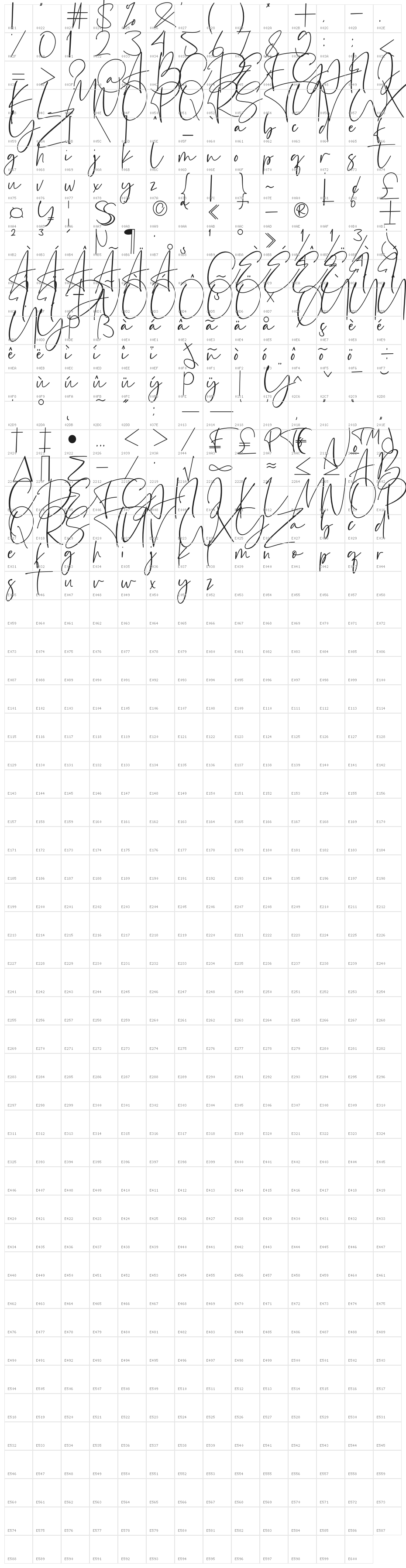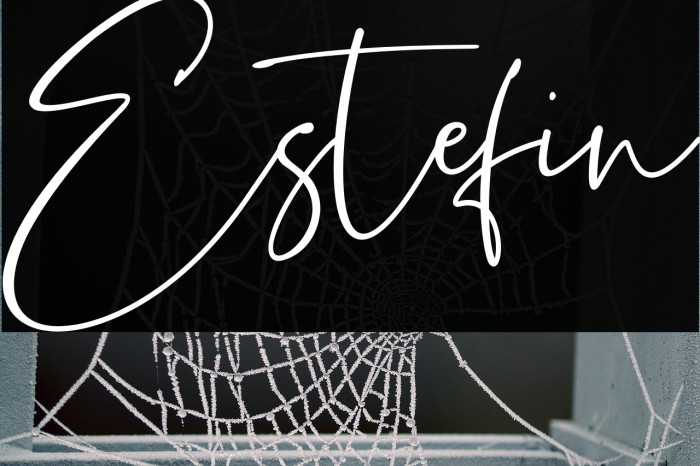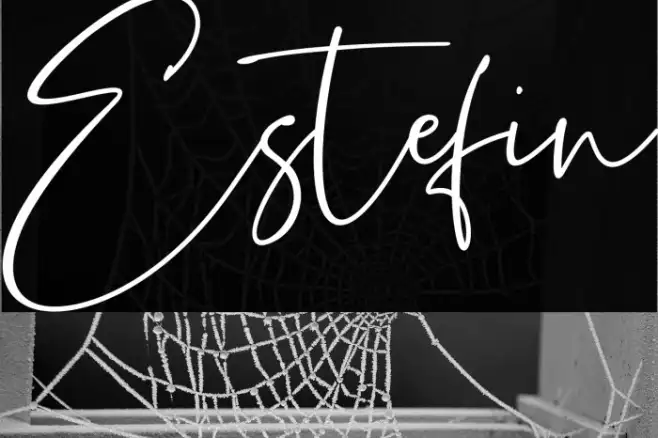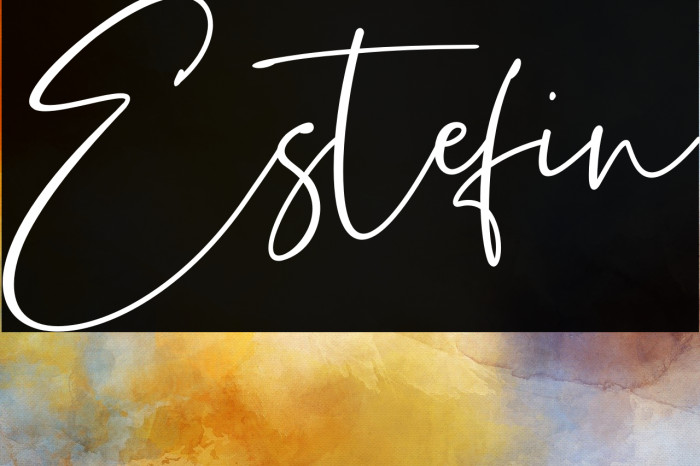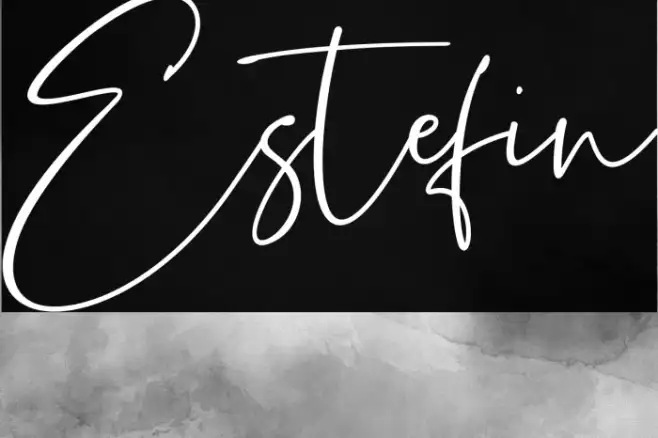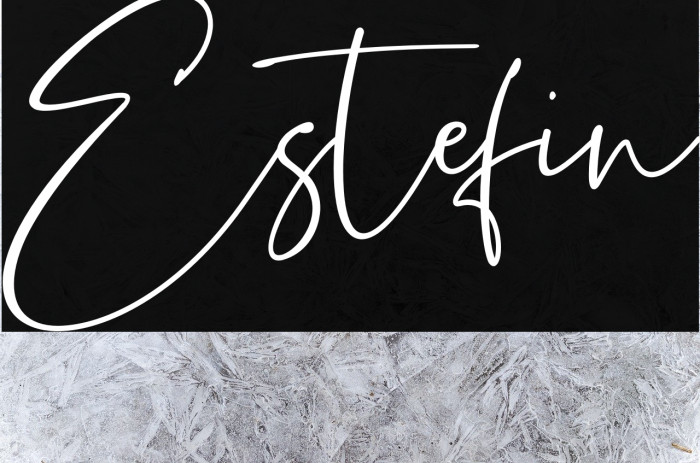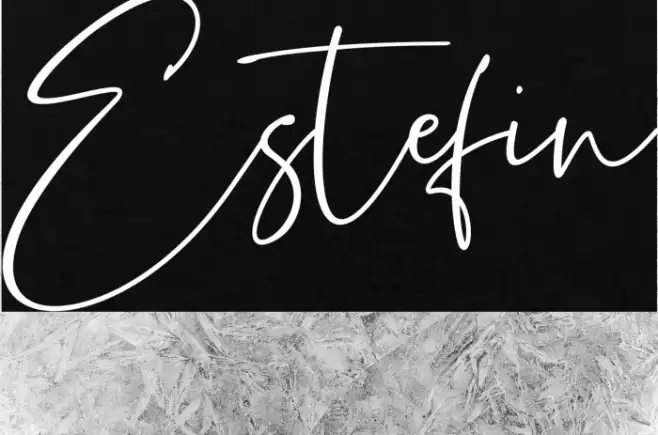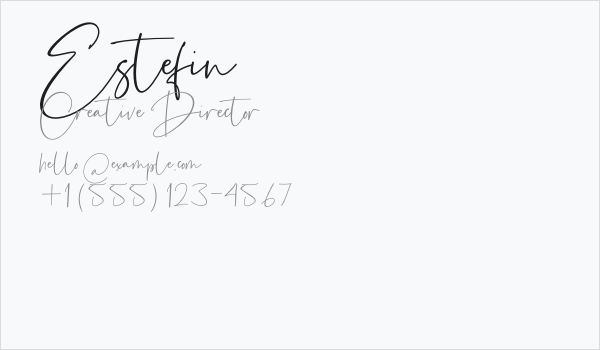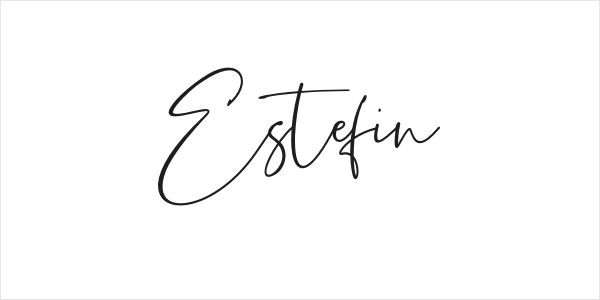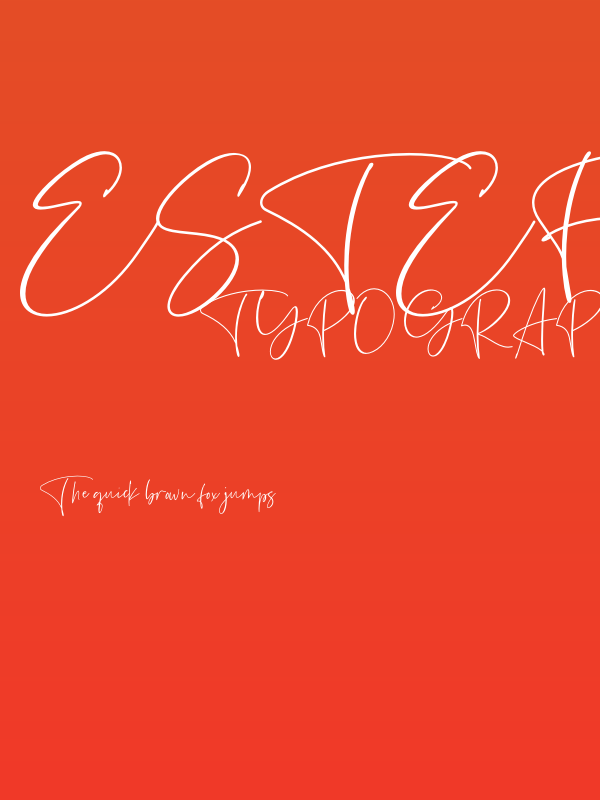
Estefin Font
Estefin Description
This font features a dynamic and fluid handwritten style, characterized by its elegant and flowing letterforms. The uppercase letters are tall and slender, with a slight slant that adds a sense of motion and grace. The lowercase letters are more expressive, with varying heights and loops that give them a lively and spontaneous appearance. The numbers maintain the same fluidity, with a consistent stroke width that complements the overall design. Special characters are thoughtfully integrated, maintaining the font's cohesive aesthetic. This font exudes a personal and artistic touch, making it ideal for projects that require a humanistic and creative flair.